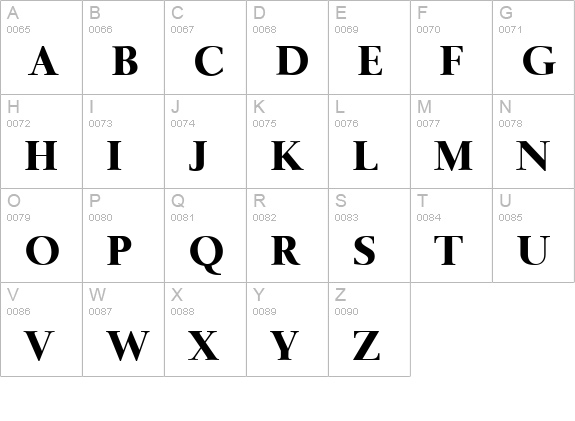
BelfastSerial-Xbold-Regular Font Details
BelfastSerial-Xbold-Regular is the standard, neutral variant in the BelfastSerial typeface family \xE2\x80\x94 well suited to general body text, paragraphs, and standard typographic work.
BelfastSerial-Xbold-Regular font is a stunning and versatile typeface that exudes modernity and sophistication. Its bold and distinct letterforms make a strong statement, perfect for headlines, logos, and any design project that requires a touch of elegance and impact. This font is not only visually appealing but also highly legible, ensuring readability across various mediums. Whether used in print or digital media, BelfastSerial-Xbold-Regular font is sure to capture attention and leave a lasting impression. And the best part? BelfastSerial-Xbold-Regular font is completely free to download at FontsMarket.com. So go ahead and enhance your designs with this beautiful and impactful typeface without breaking the bank. Download now and elevate your creative projects with BelfastSerial-Xbold-Regular font.